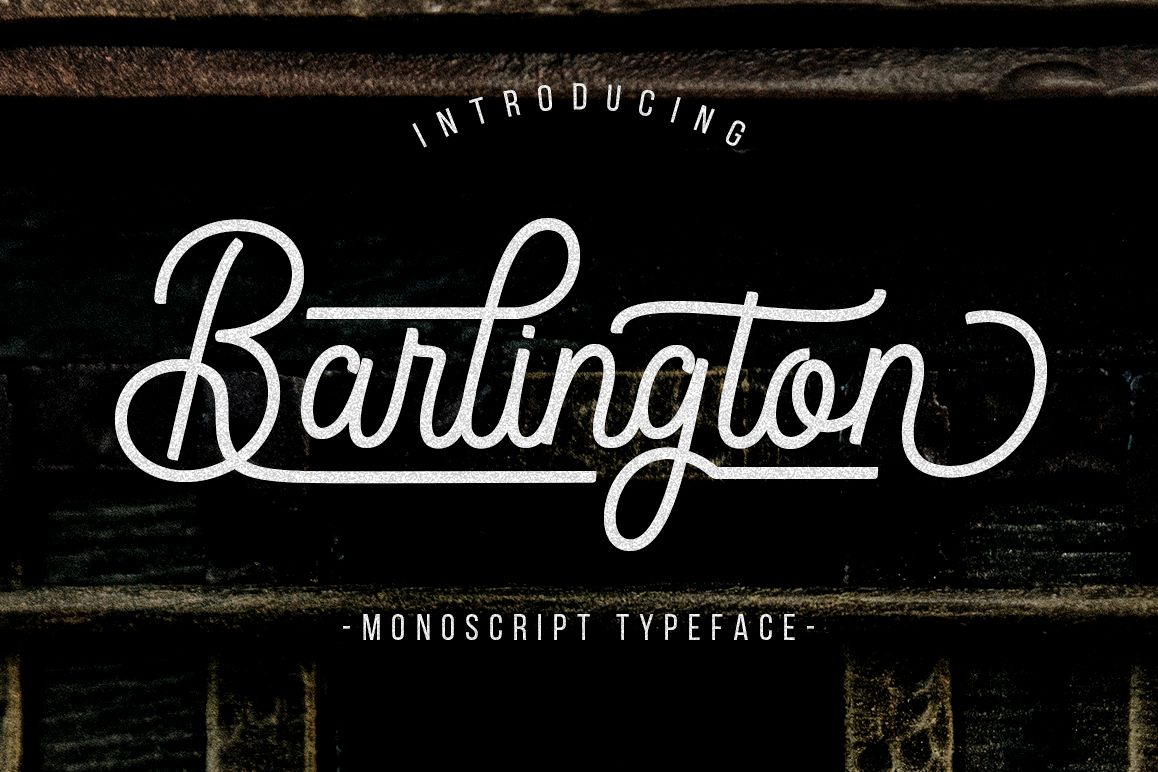
Barlington
INTRODUCING
Barlington is a Monoline Script Typeface, a classic and fun vintage script. Combination with classic & modern style fonts. This font can be used easily, even in mixing and matching with other fonts. So that it can provide alternatives and new sensations for designers or craftsmen, in working on various projects. This font you can use for various purposes. Such as logos, wedding invitations, t-shirts, letterhead, signage, labels, news, posters, badges, etc.Barlington comes with uppercase letters, lowercase letters, numbers, punctuation, and so many variations on each character including OpenType alternatives, and multilingual support.